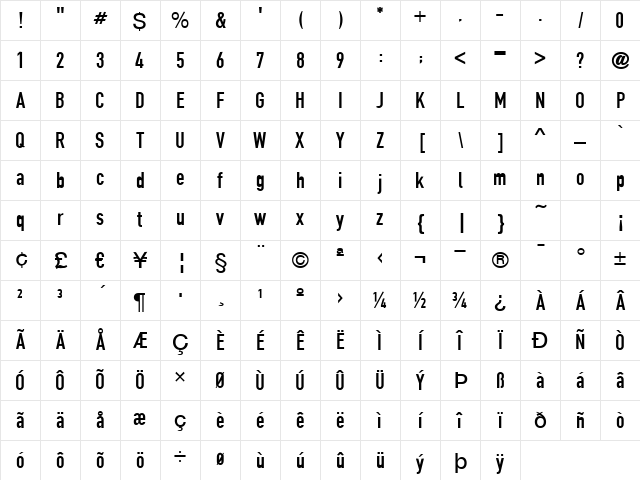
Complete FetteEngschrift Normal glyph index. Displaying only characters natively supported by FetteEngschrift Normal font.
FetteEngschrift is a composed and adaptable typeface that performs quietly and consistently across a wide range of design contexts.